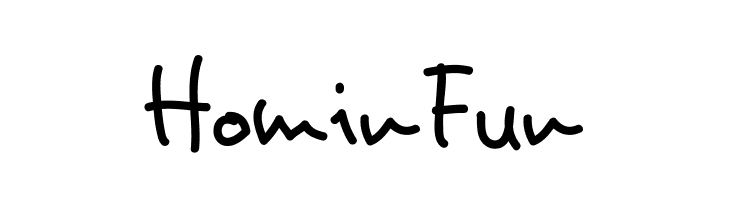
( Wawan Hermawan )
A playful handwritten font with a casual and dynamic style.
A playful, casual handwritten font with irregular strokes and a friendly appearance.